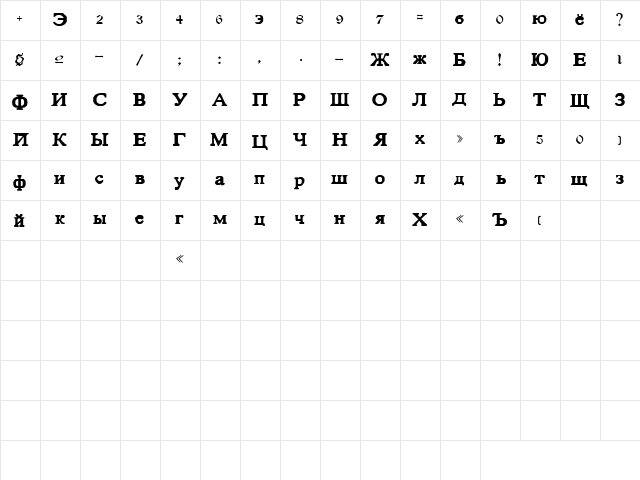
HTE Basic Cyrillic Normal
Design Context for HTE Basic Cyrillic Typeface
HTE Basic Cyrillic is a composed and adaptable typeface that performs quietly and consistently across a wide range of design contexts.